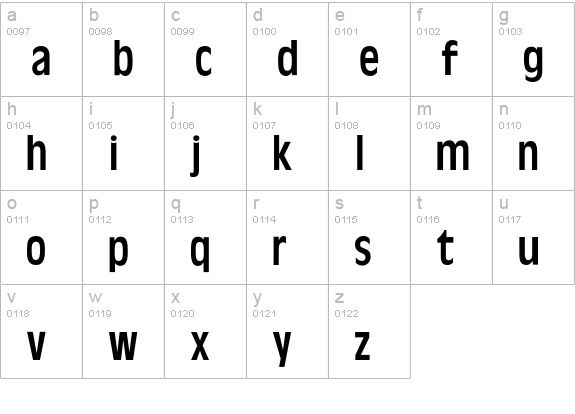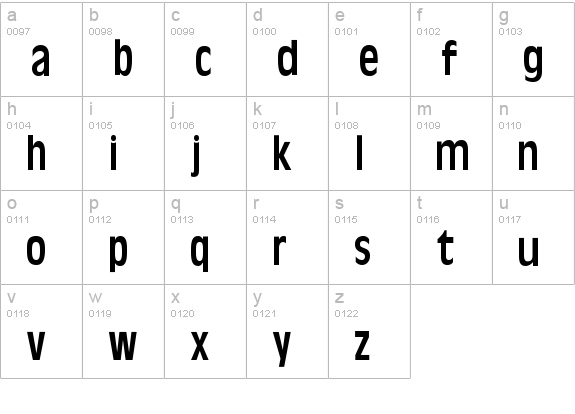
OliveAntiqueNarrow Font Details
OliveAntiqueNarrow is a stunning and elegant font that exudes a timeless charm with its antique-inspired design. This font features narrow letterforms with intricate details that add a touch of sophistication to any project. Perfect for vintage-themed designs, invitations, labels, and more, OliveAntiqueNarrow is sure to make a lasting impression. The best part? OliveAntiqueNarrow is available for free download at FontsMarket.com, making it easily accessible for all designers and creatives looking to add a touch of classic beauty to their work. Download this exquisite font today and elevate your designs with its unique style and grace.